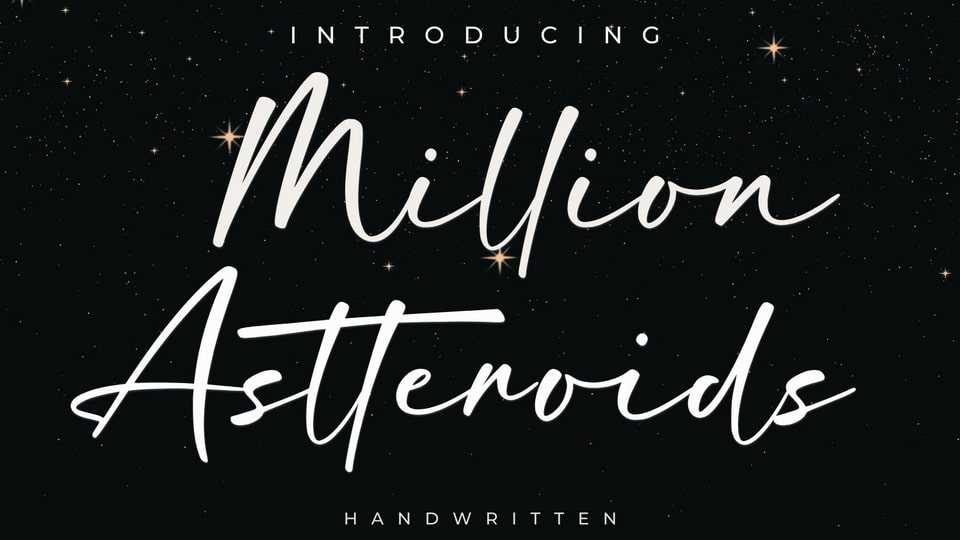
Download Million Astteroids font, a handwritten typeface, made with natural beauty and precision, perfect for branding, websites, and editorial design.